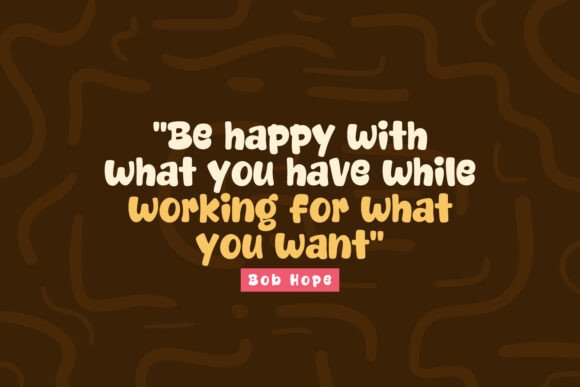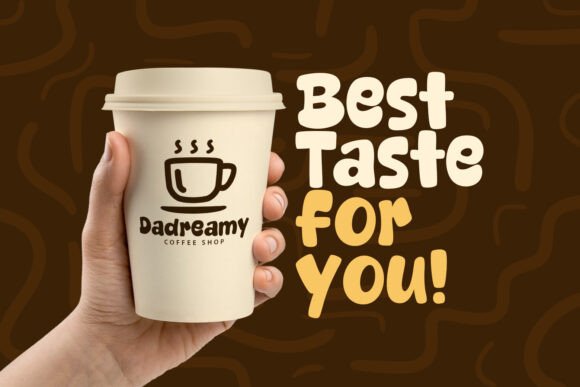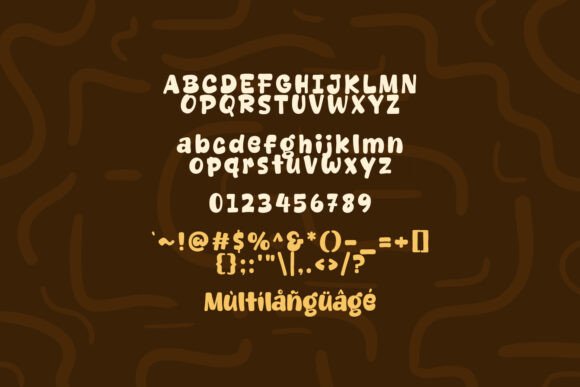
Dream Beige Font: Elevate Your Designs with a Modern and Cute Display Font
Are you a designer or crafter looking for a font that can add a touch of elegance and playfulness to your projects? Look no further than the Dream Beige Font, also known as Cream Beige. This modern and cute display font is perfect for a wide range of applications, from posters and logos to magazines, book covers, and banners.
What Makes Dream Beige Font So Special?
Dream Beige Font is a versatile and stylish font that can easily be matched to an incredibly large set of projects. Its unique blend of modernity and cuteness makes it stand out from other fonts, allowing your designs to grab attention and leave a lasting impression.
Whether you’re working on a creative project, such as a poster, logo, or magazine, or need a font for a more commercial application, like a book cover or banner, Dream Beige Font is the perfect choice. Its flexibility and adaptability make it an excellent addition to your font collection.
Key Features of Dream Beige Font
- Modern and Cute Design: Dream Beige Font boasts a fresh and playful design that will add a touch of whimsy to your projects.
- Display Font: This font is specifically designed to make a statement, making it perfect for headlines, titles, and other display text.
- Highly Versatile: Dream Beige Font can be used for a wide range of projects, from creative endeavors to commercial applications.
- Easily Readable: Despite its stylish design, Dream Beige Font remains highly readable, even at smaller sizes.
How to Use Dream Beige Font in Your Designs
Here are a few ideas to get you started:
- Create a stunning poster or flyer for a event or promotion.
- Design a beautiful logo for a brand or business.
- Develop a unique and eye-catching book cover or magazine spread.
- Make a bold statement with a custom banner or sign.
Why Choose Dream Beige Font?
With so many fonts available, why choose Dream Beige Font? Here are just a few reasons:
- Unique Design: Dream Beige Font offers a fresh and distinctive design that will set your projects apart.
- Highly Versatile: Dream Beige Font can be used for a wide range of projects, making it a valuable addition to your font collection.
| Font Name | Dream Beige Font |
| Author | si.jalembe |